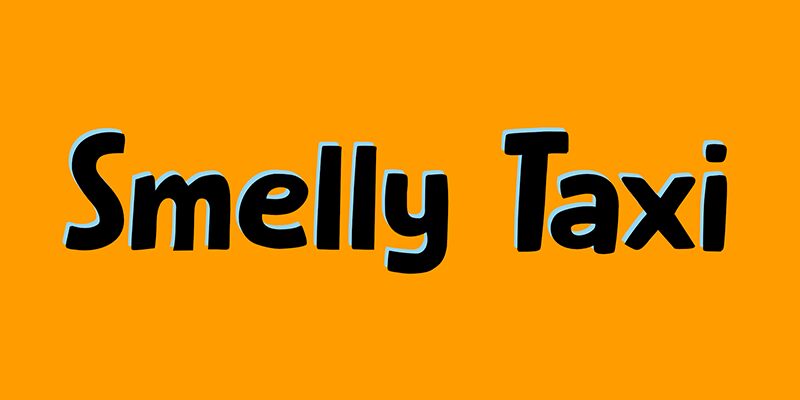
Smelly Taxi DEMO Regular
Smelly Taxi font by David Kerkhoff is a chunky display typeface with a handcrafted feel and casual style. Its friendly cartoon impression and lively personality make it ideal for contemporary applications in creative projects. The letters are thick and clearly legible, allowing readers to focus on the text itself as well as the overall design.